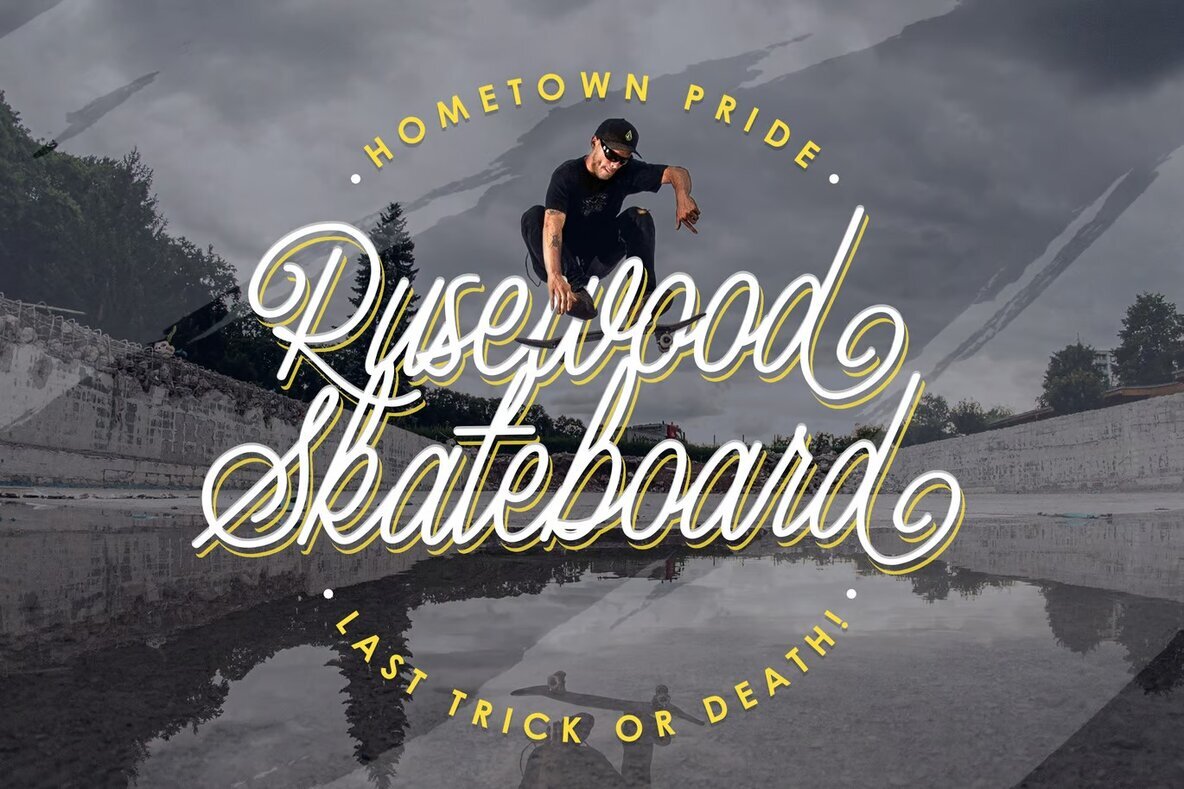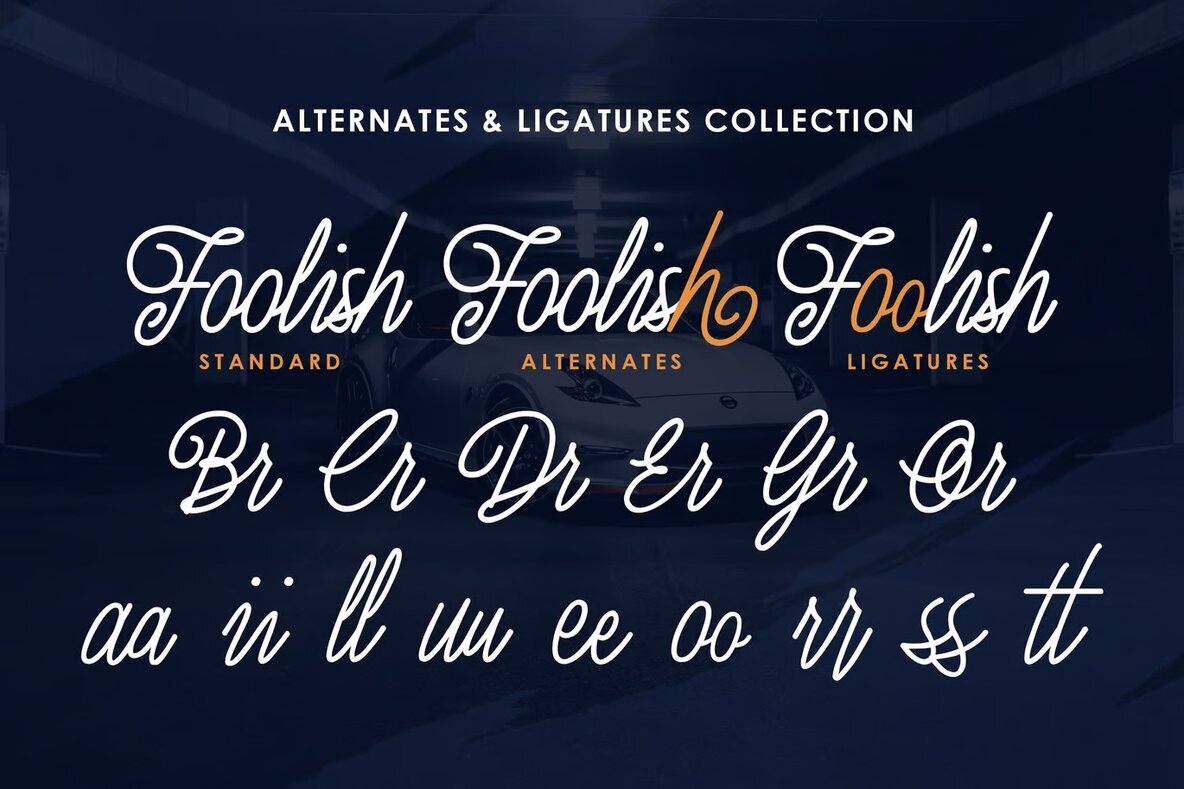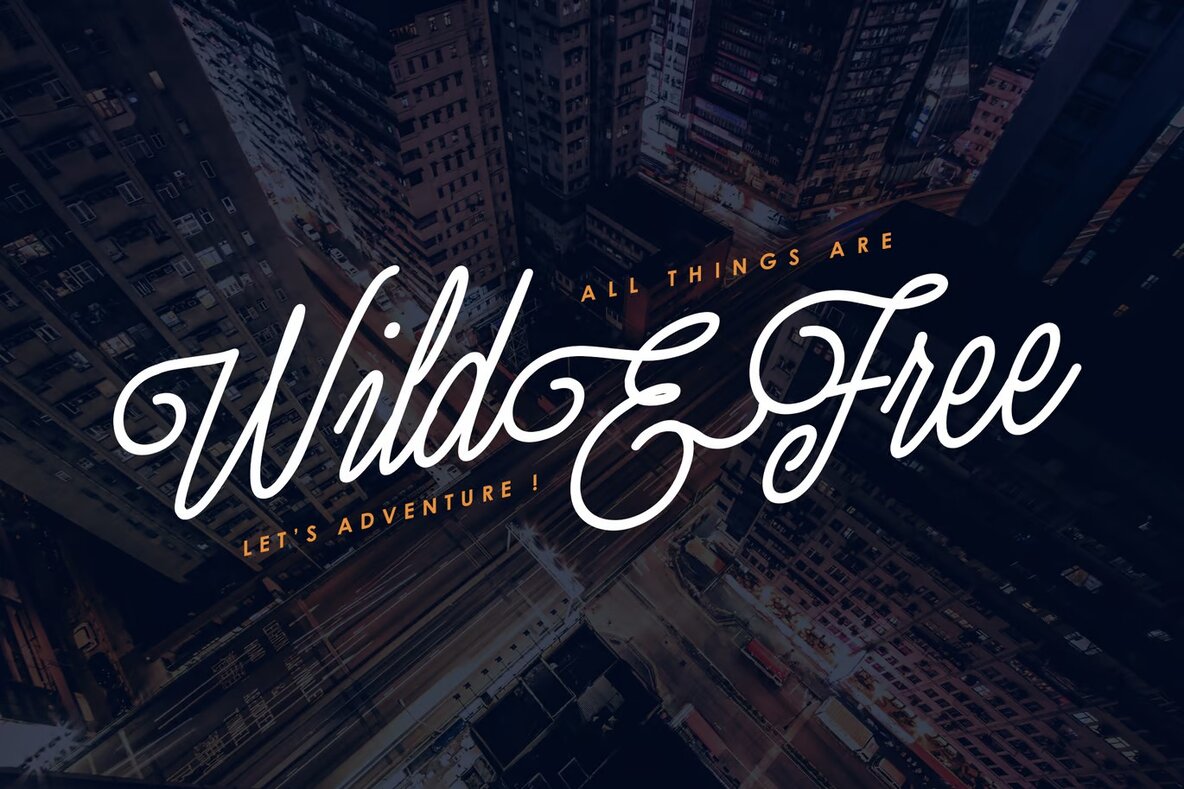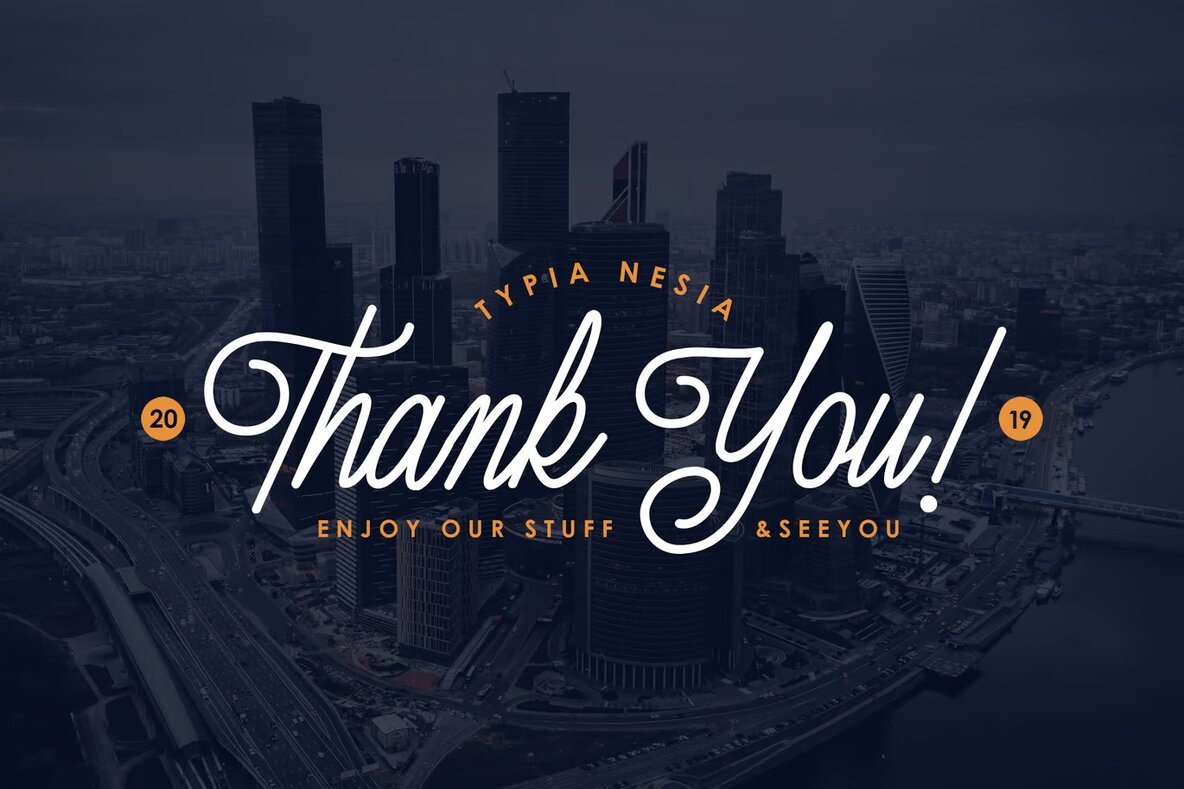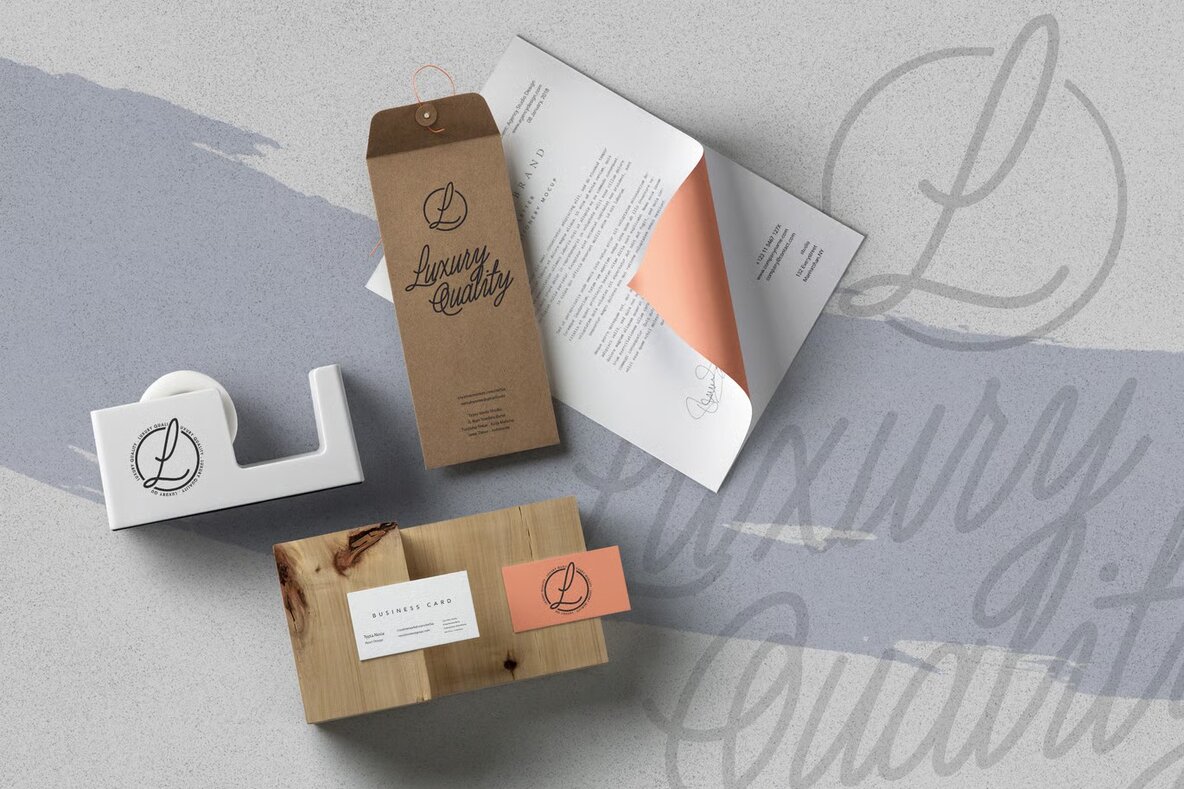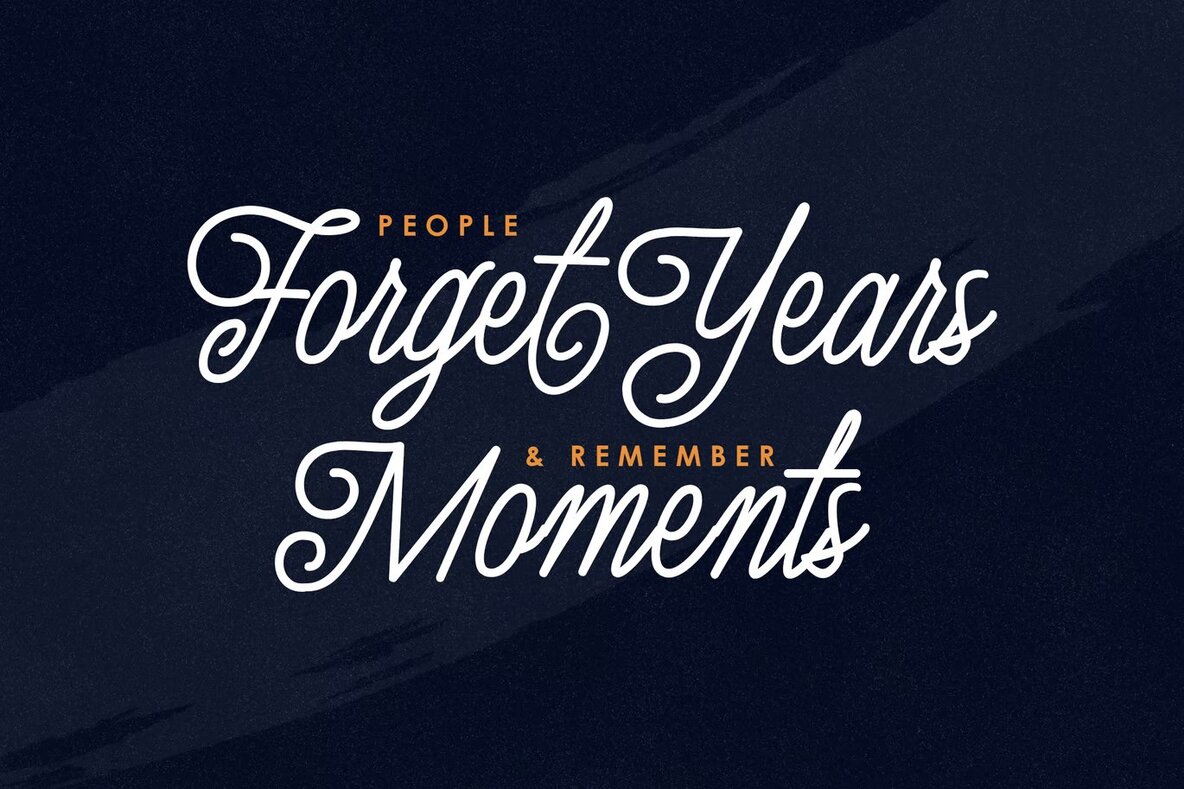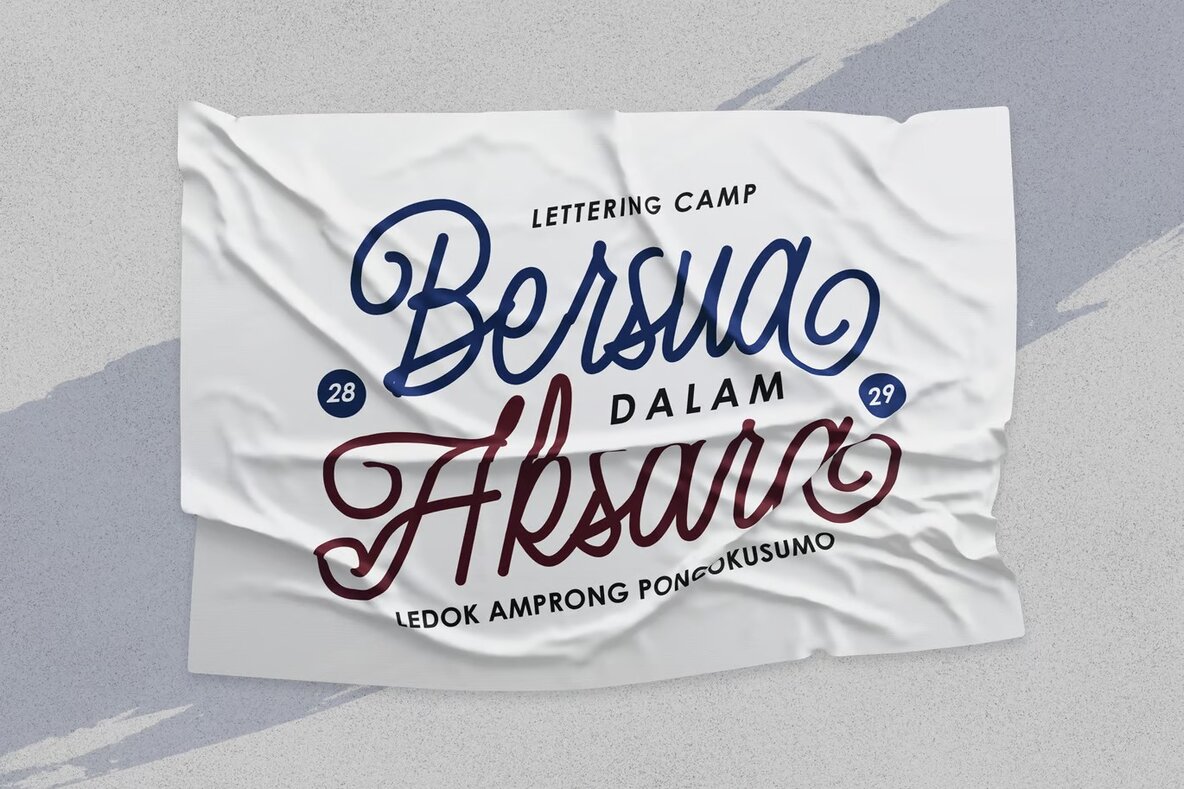
Luxury Quality Font
Luxury Quality
Luxury Quality Font is a new elegant and classy monoline script font. It is perfect for your up coming projects. Such as modern design, branding, stationery design, blog design, modern advertising design, card invitation, art quote, home decor, book/cover title, special events ( wedding, birthday, etc ), and any more modern elegant design. Luxury Quality comes with upper and lowercase Standard Characters, Punctuation, Numerals. And other Glyphs variation of the OpenType features such as Standard Ligature, Stylistic Alternate and Stylistic Set. PUA Encode Characters, fully accessible without additional design software. and includes a range of multilingual characters.